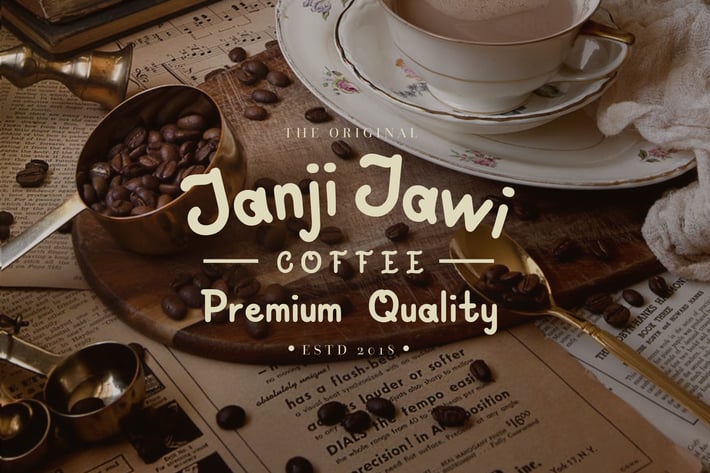
Janji Jawi Handwritten Script Font
naulicrea
Are you looking for a simple and elegant handwriting font? We can help! Try to download our janji jawi font. The font is suitable to use for all casual purpose. Try to use it on Wedding invitation, greeting card, poster, postcard, photography, branding, editorial, and many more :)